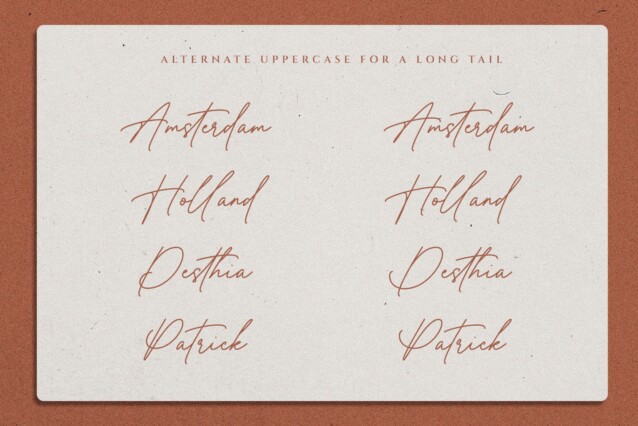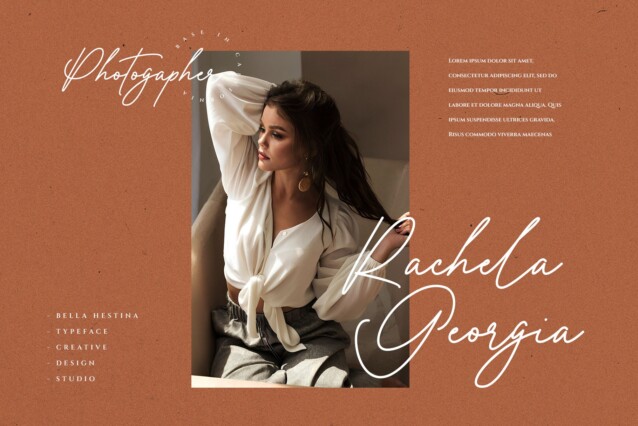
Bella Hestina Font is a monoline script font with delicate lines to add a personal touch, plus the extra special Christmas characters will be the perfect addition to your festive designs. This font is a great choice for a watermark on photography, branding, wedding event, signature or signature logo design, quotes, album cover, magazine, business card, and many other design projects. Bella Hestina is here to take your work to a high level!!! This font is PUA encoded which means you can access all of the amazing glyphs and ligatures with ease!